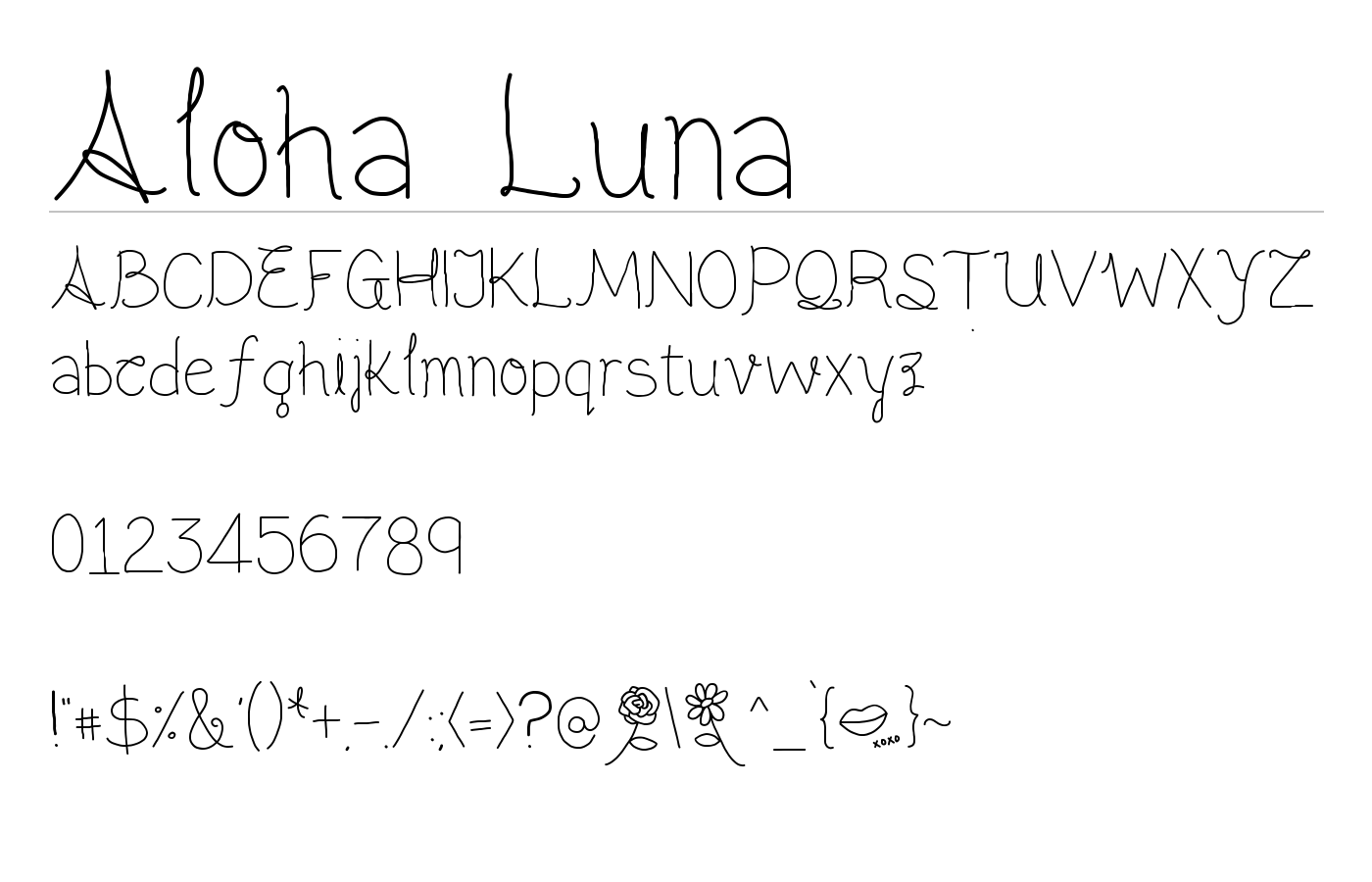
Aloha Luna is a whimsical handwritten font with a delicate, airy feel and playful, elongated letterforms. Its thin strokes and unique character shapes, including charming flourishes on letters and quirky symbols, give it a light, casual, and creative personality perfect for informal branding, invitations, and artistic projects. This font works best where a friendly, personal touch is desired, bringing a sense of fun and individuality to designs.
Aloha Luna Font
About Aloha Luna Font